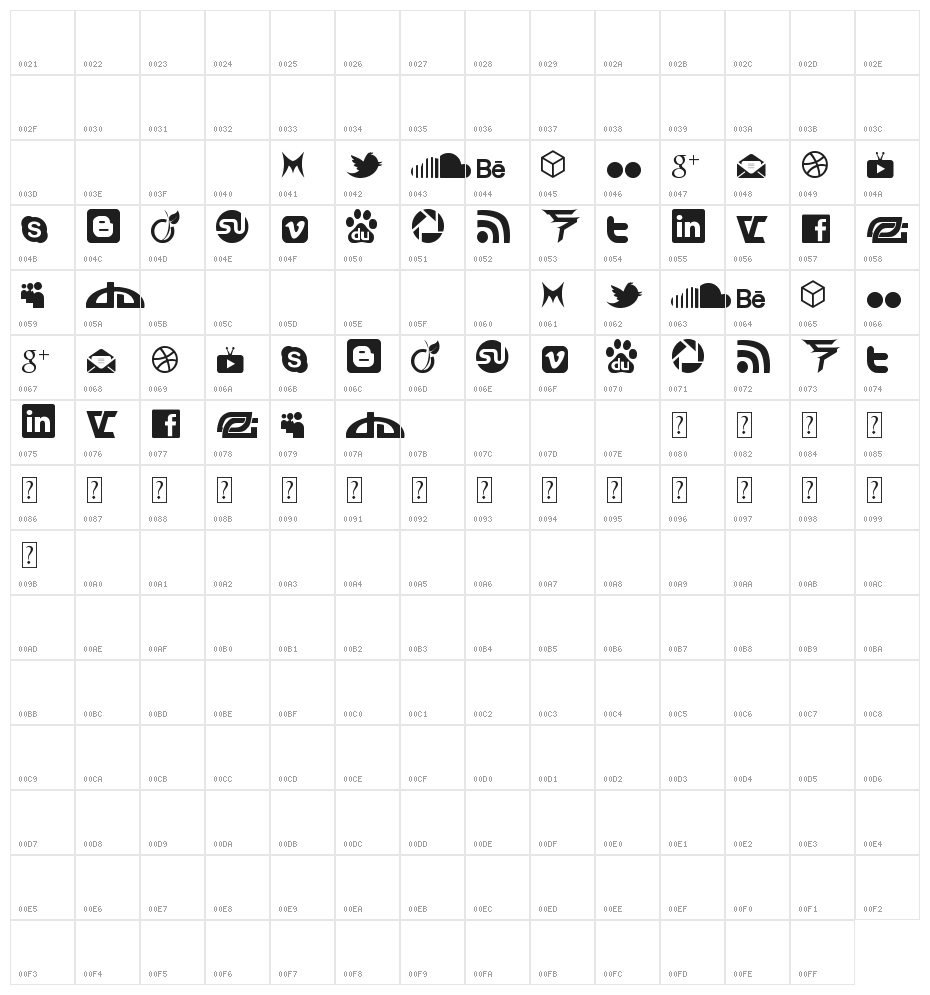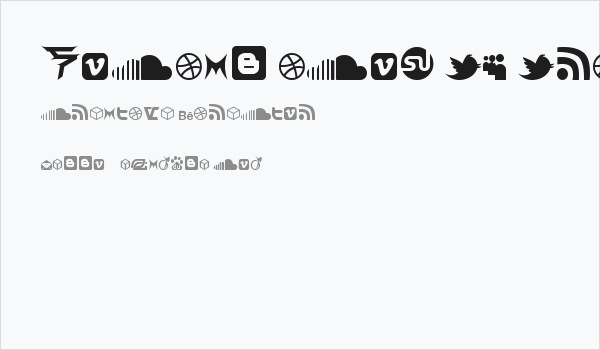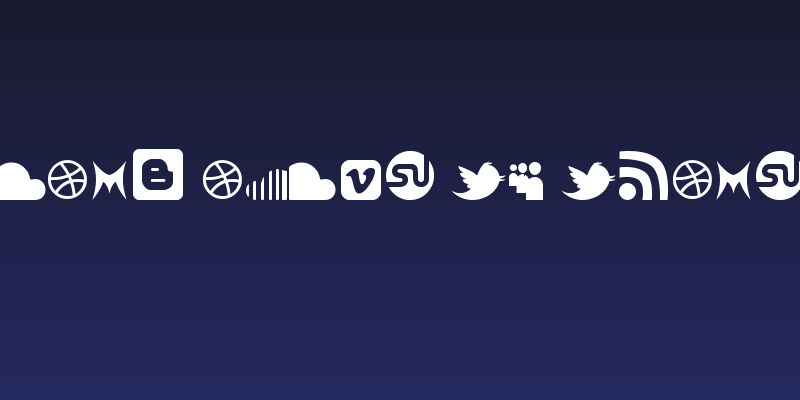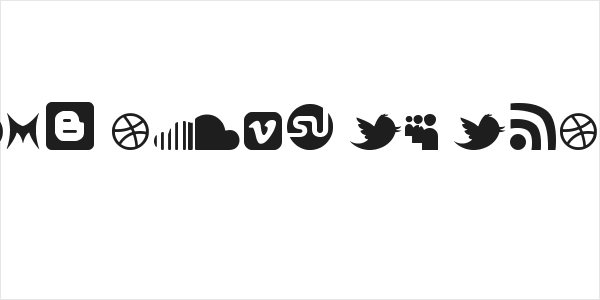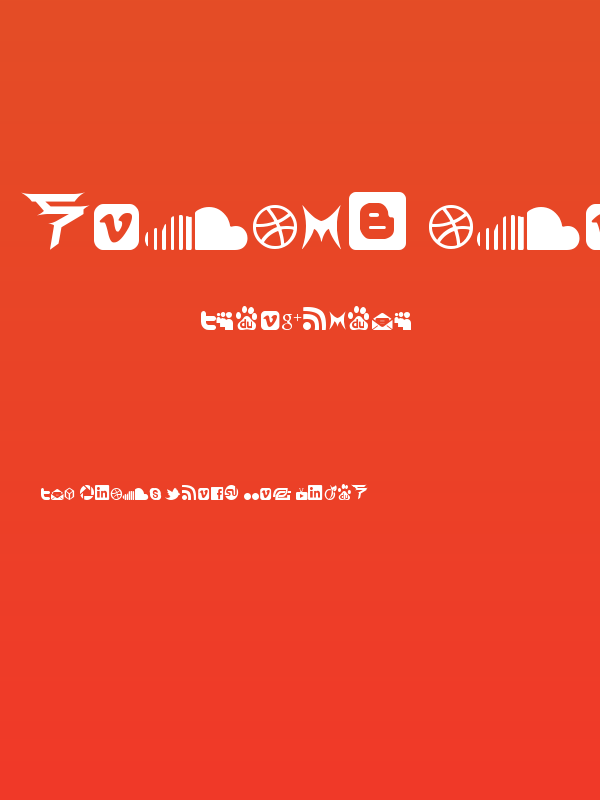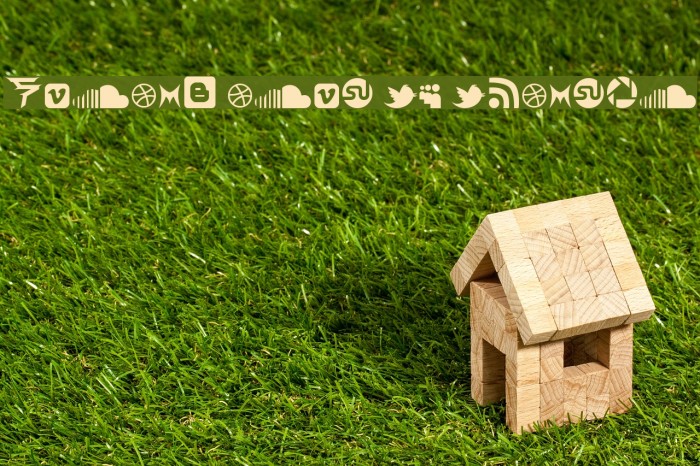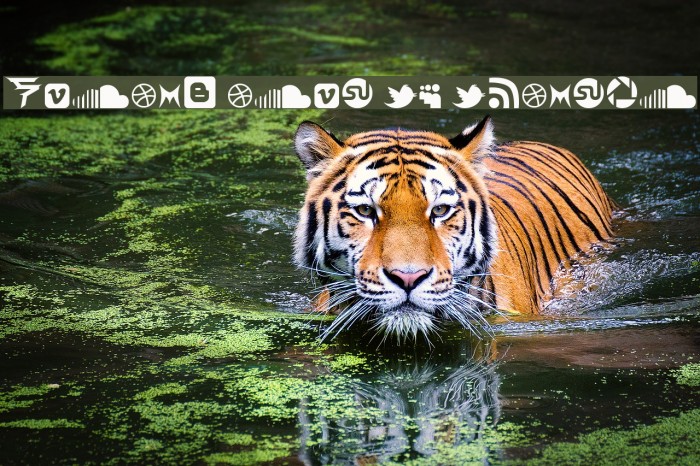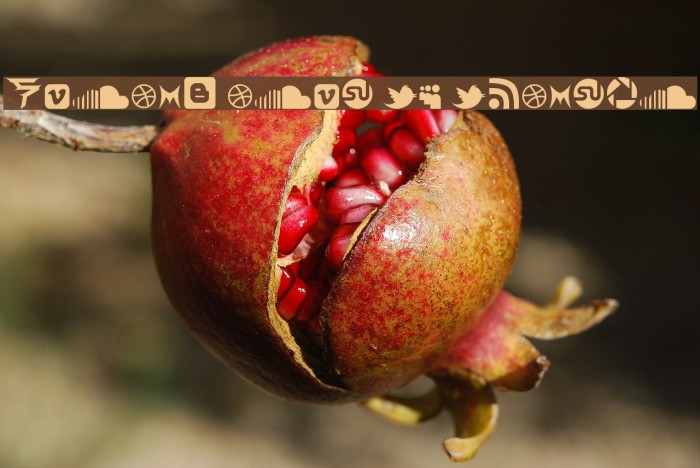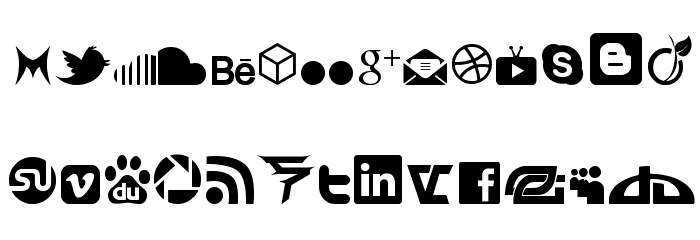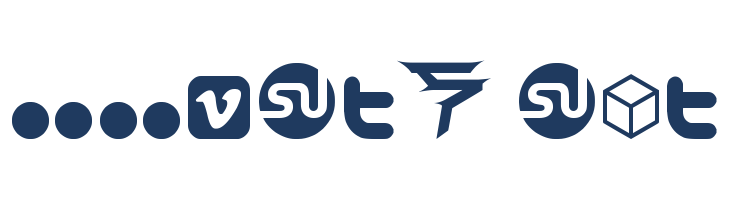
Social Icon by BRIANQC Font
This set features a collection of social media and web-related icons, each designed with a bold and modern aesthetic. The icons are uniform in style, utilizing solid fills and clean lines to create a cohesive look. The design is minimalistic yet impactful, making it suitable for a variety of digital applications. The icons are easily recognizable, ensuring effective communication of their respective platforms or functions. This collection is ideal for enhancing user interfaces, websites, or any project requiring clear and stylish social media representation.
| Use Case | Logos, Icons |
| Proposed Projects | Ideal for website design, app interfaces, digital marketing materials, and social media branding. |